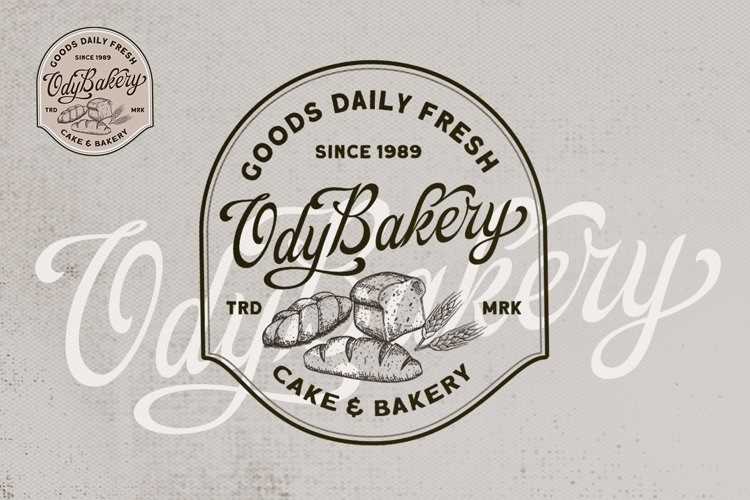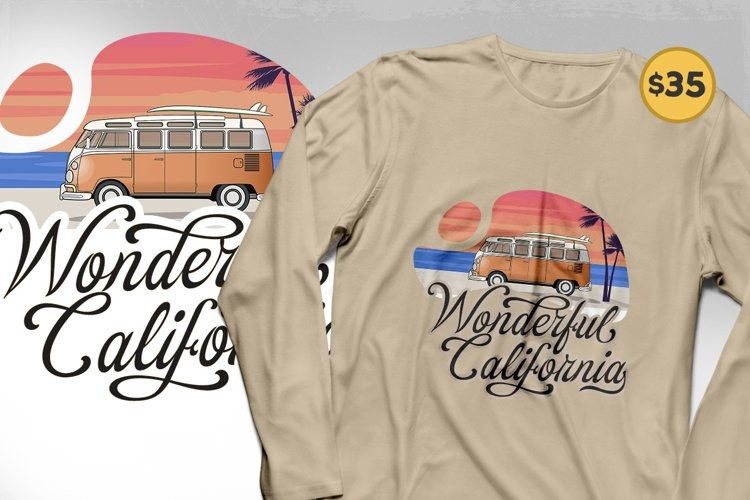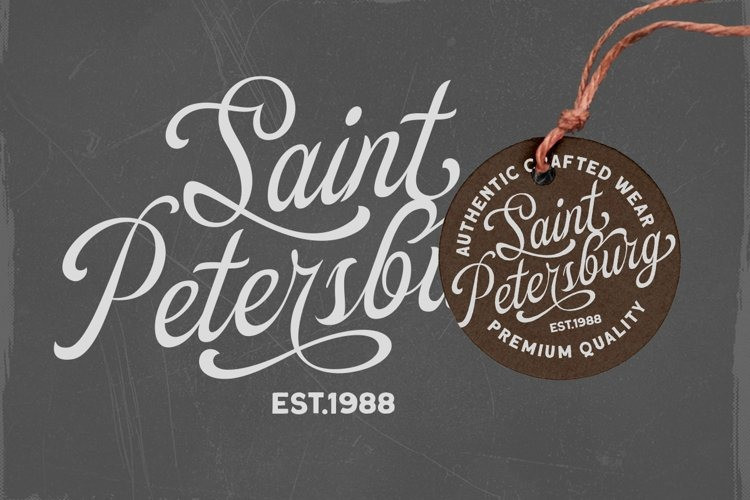
Greybridge Font
Greybridge Script Font
This is a retro bold script font manufactured by Letterhend Studio. It was inspired from retro typography and lettering in the 60’s and 70’s. This type of font perfectly made to be applied especially in logo, and the other various formal forms such as invitations, labels, logos, magazines, books, greeting / wedding cards, packaging, fashion, make up, stationery, novels, labels or any type of advertising purpose.